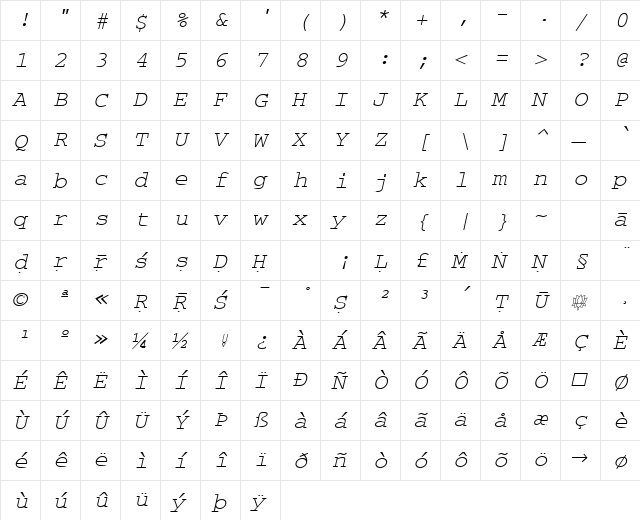
Sanskrit-Courier Oblique
Design Context for Sanskrit-Courier Typeface
Sanskrit-Courier brings the precise, column-aligned rhythm of monospaced typography to designs that value technical clarity and systematic order. The slanted form adds forward momentum and visual energy.